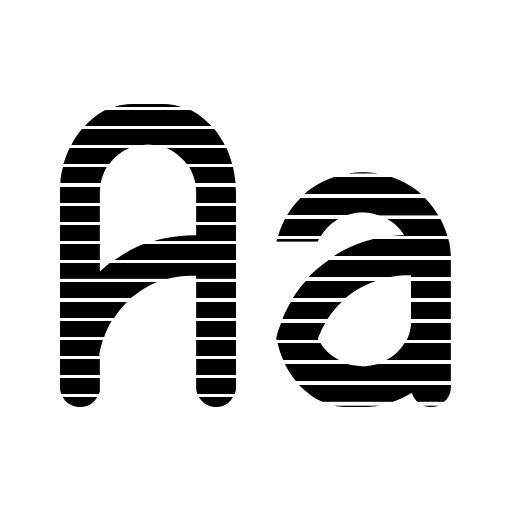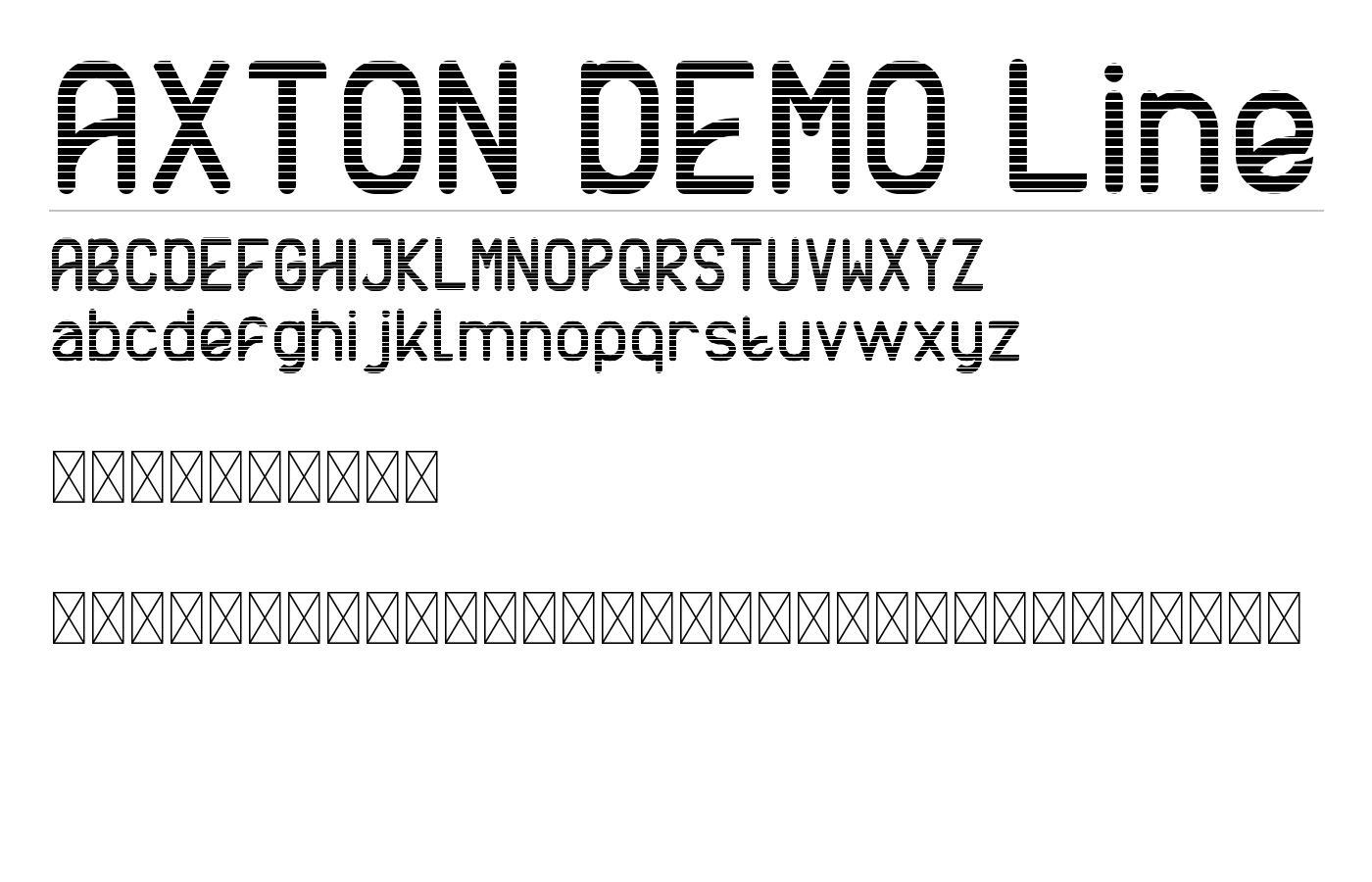
AXTON DEMO is a modern sans serif font characterized by its unique horizontal line pattern that creates a striking, futuristic look. Its medium weight, normal width, and geometric letterforms give it a clean, tech-inspired personality, making it ideal for logos, posters, and branding where a contemporary and distinctive style is desired. This font works best in display settings, grabbing attention with its bold yet elegant striped design.
AXTON DEMO Font